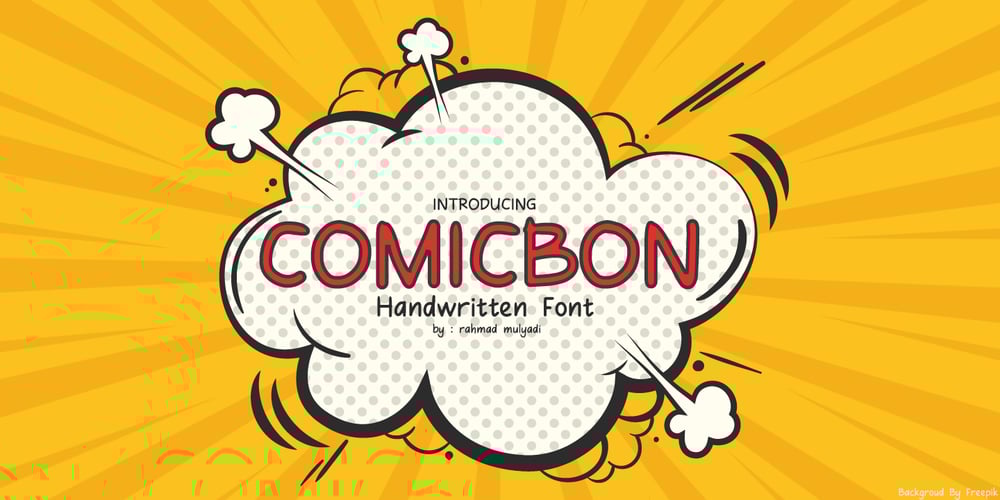
Comicbon Font Family was designed by Rahmad Mulyadi and published by BaronWNM. Comicbon contains 1 styles and family package options. Comicbon is a handwritten font that simultates text being writen on a comic, ads, creating logos, branding, teaching websites/apps/games, and many more.